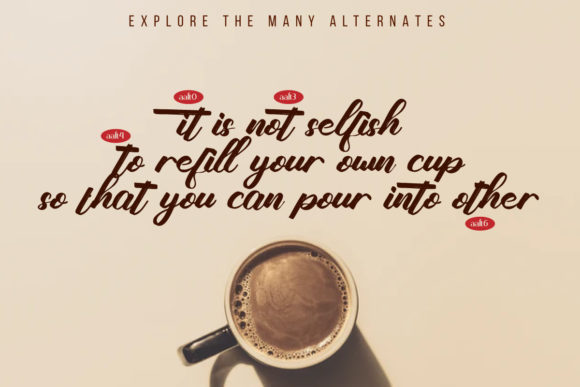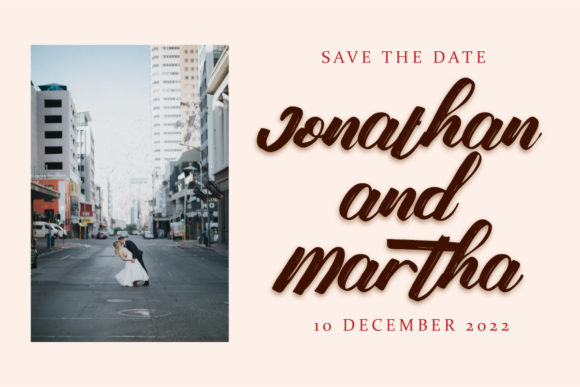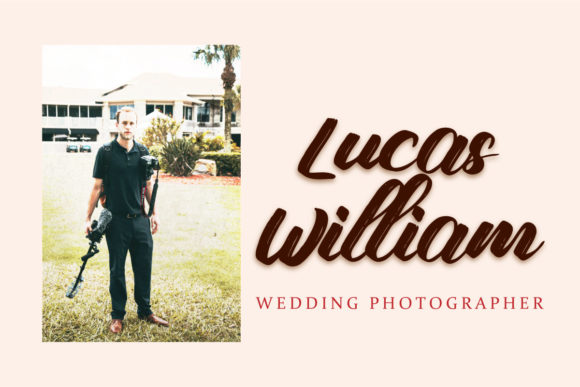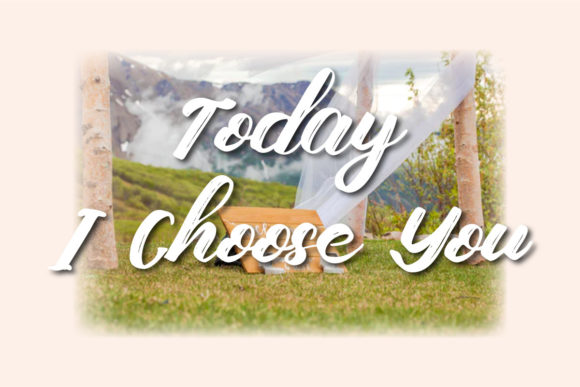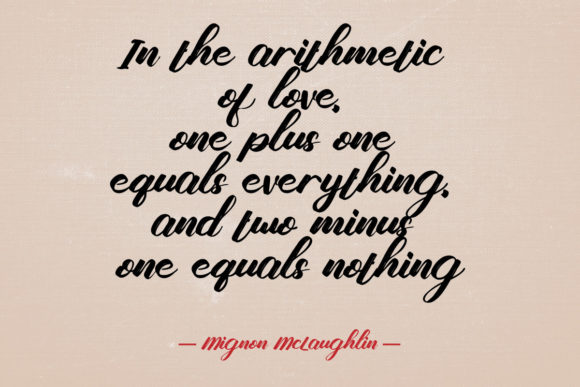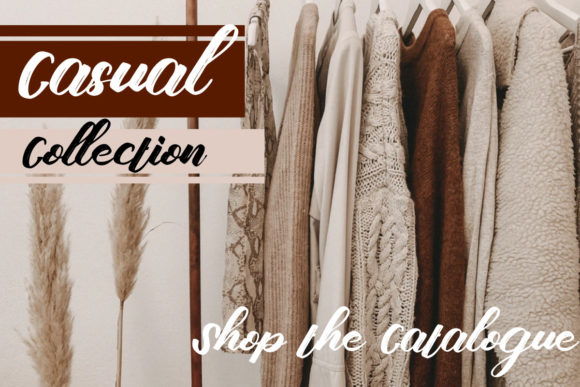
Introduction to Constatown Font
Constatown is a lovely and timeless handwritten font.
Key Features of Constatown Font
Why Choose Constatown Font?
Constatown Font offers exceptional quality and versatility, making it a valuable addition to your design toolkit. Whether you’re creating for personal projects or commercial use, Constatown Font delivers professional results.